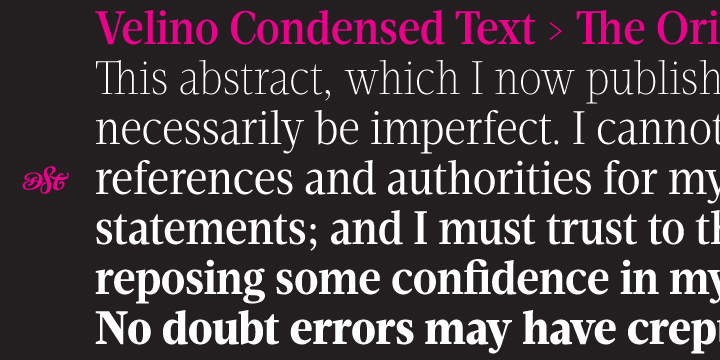
Velino Condensed Text Font excels across numerous design applications including newspaper layouts, magazine columns, editorial headlines, compact brochures, space-efficient packaging, narrow banner designs, vertical signage, mobile app interfaces, responsive web typography, annual reports, technical documentation, product catalogs, directory listings, and information-dense materials. This space-saving typeface performs exceptionally well in both digital and print environments, making it the perfect solution for designers who need to maximize content while maintaining readability and visual appeal in constrained layouts.
What makes Velino Condensed Text Font Free Download truly exciting is its remarkable ability to deliver maximum readability within minimal horizontal space without sacrificing typographic elegance. The font features expertly crafted letterforms with optimized character spacing and proportions that maintain excellent legibility even at smaller sizes and tight line spacing. Its condensed design philosophy incorporates refined details and balanced stroke weights that create visual harmony while efficiently utilizing available space. The font's professional appearance and space-efficient nature make it ideal for projects requiring high information density and clean, organized presentation.
The Velino Condensed Text Font family typically encompasses multiple weights including light, regular, medium, bold, and extra bold variations, often complemented by corresponding italic styles and potential ultra-condensed versions. Each weight maintains the core space-efficient design principles while offering different levels of visual emphasis and typographic hierarchy. The comprehensive character set supports extensive language coverage and includes essential punctuation marks, numerals, currency symbols, and specialized characters, ensuring designers have complete flexibility to create sophisticated layouts and maintain consistency across complex multilingual publications.
Whether you're working on editorial design, corporate communications, or space-constrained digital interfaces, Velino Condensed Text Font Free Download provides the typographic efficiency necessary for creating professional and highly readable designs. Its space-saving capabilities and typographic excellence make it an invaluable resource for any designer's font library, offering unlimited possibilities for creating information-rich layouts while maintaining the highest standards of clarity, organization, and visual sophistication in today's content-heavy design challenges.